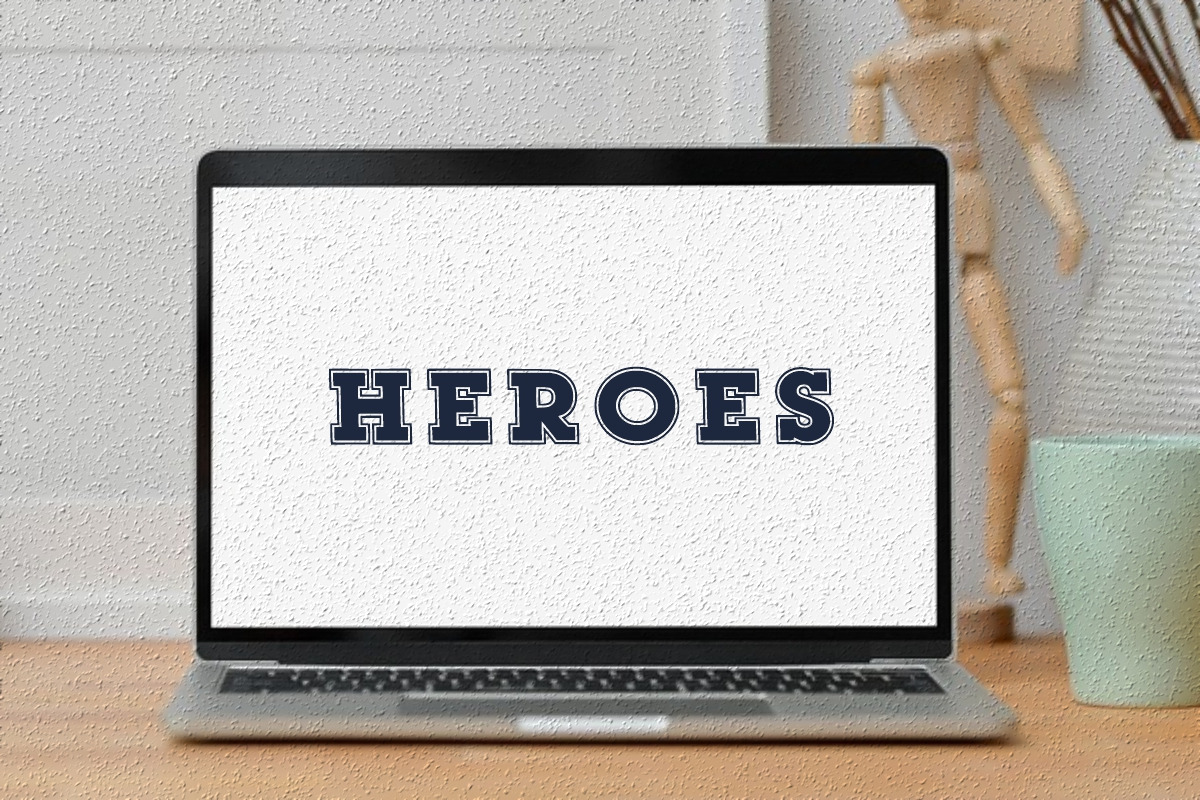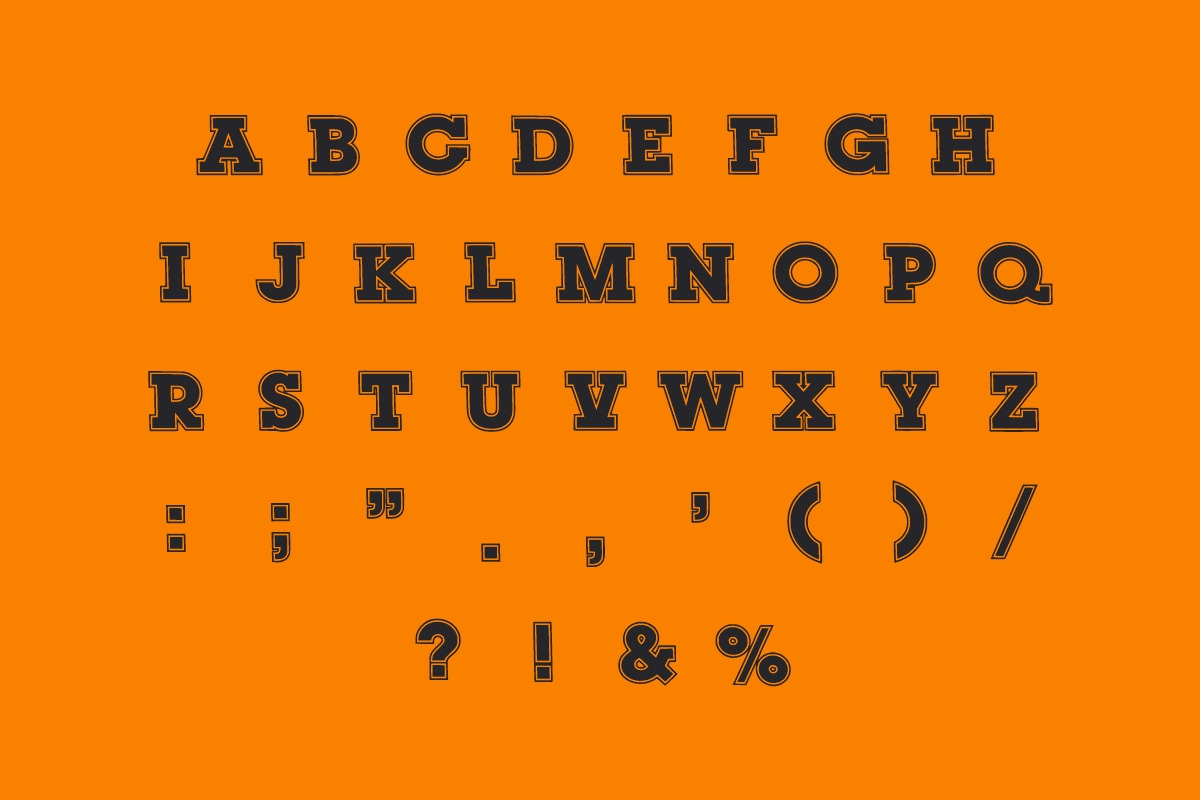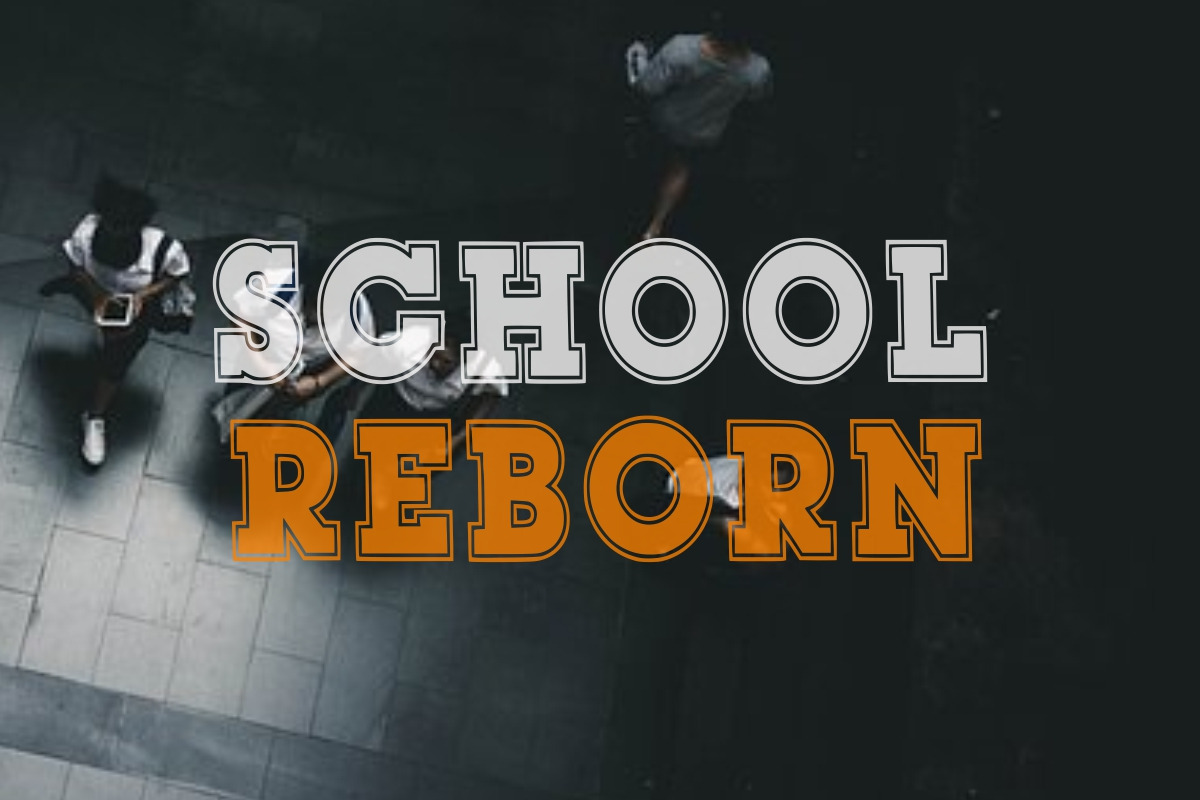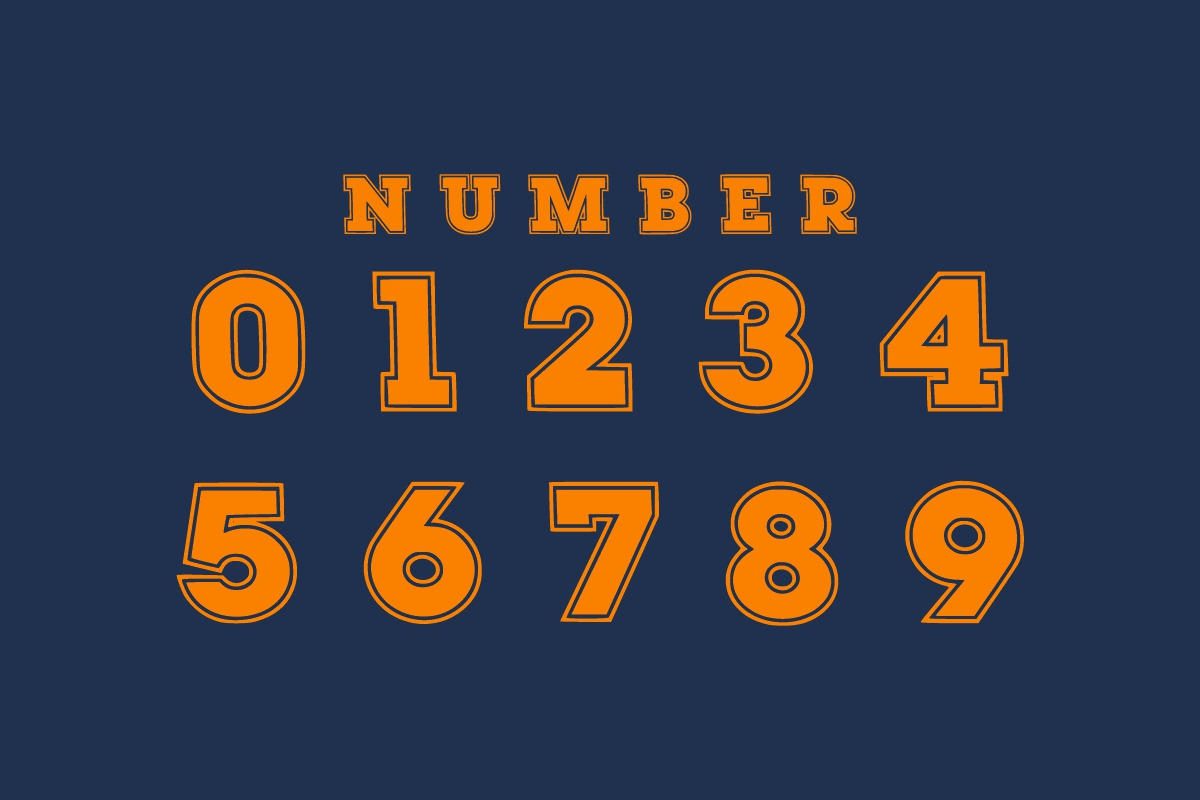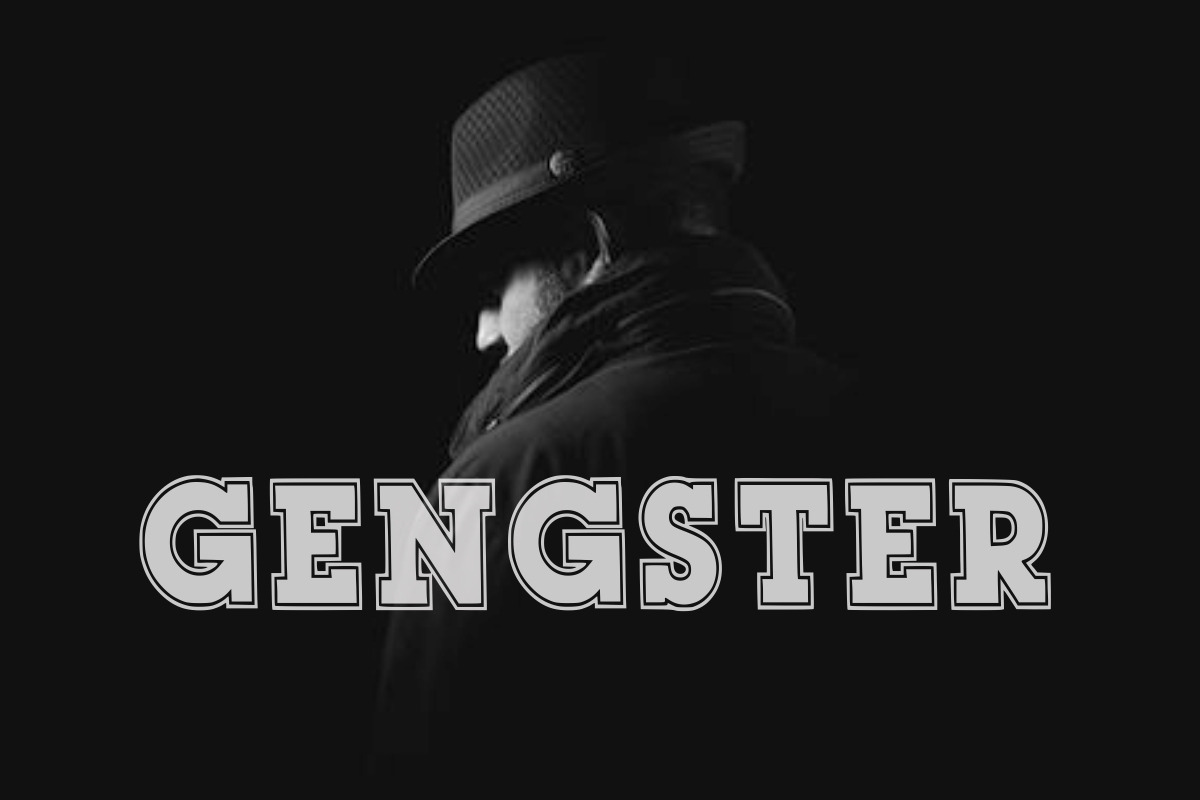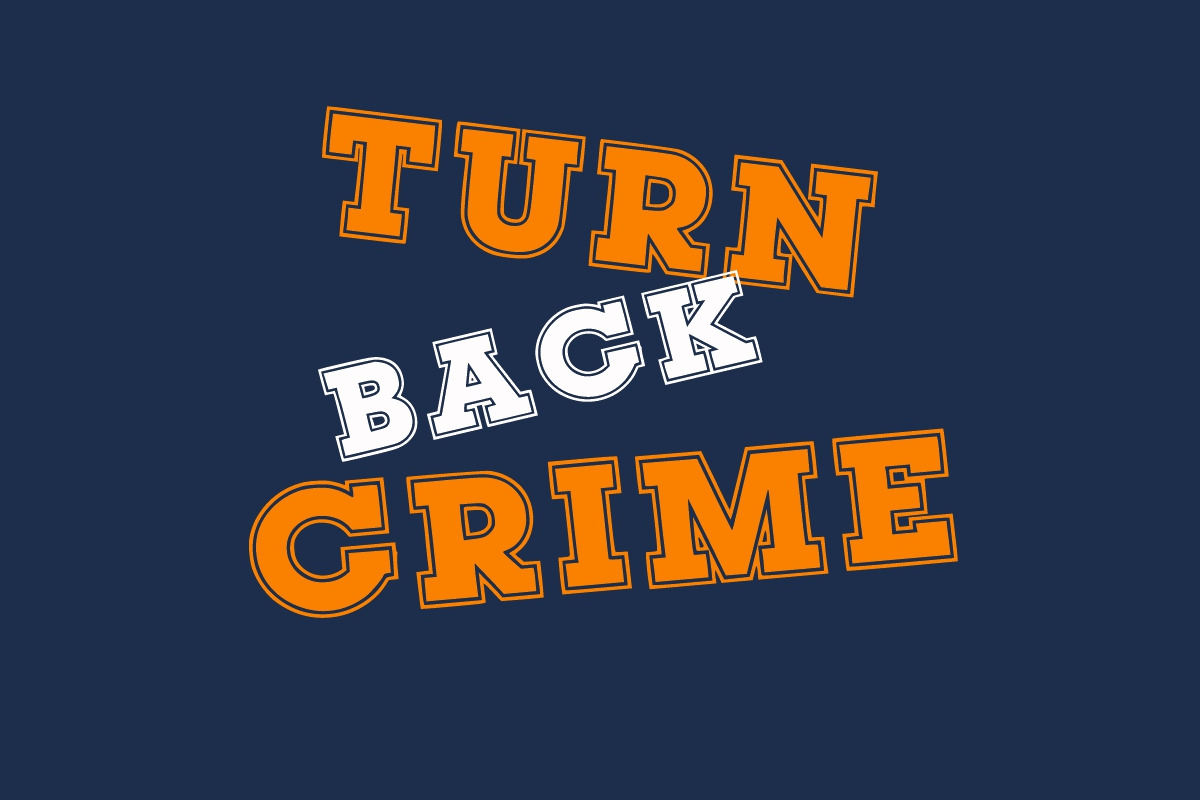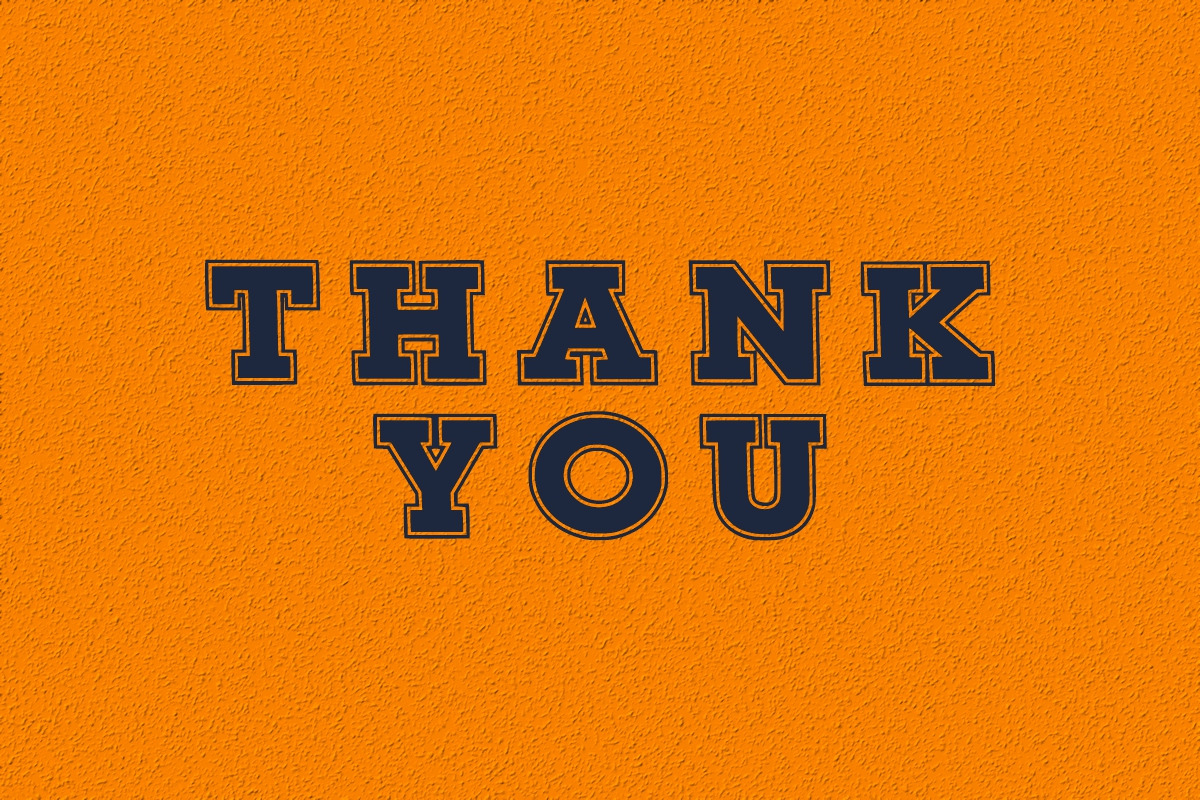
Varsity Design
Varsity Design is a modern and bold display font. It is suitable for any winter and holiday branding project, product packaging, invitation, quote, t-shirt, label, poster, text effect, label, and logo that you wish to develop.